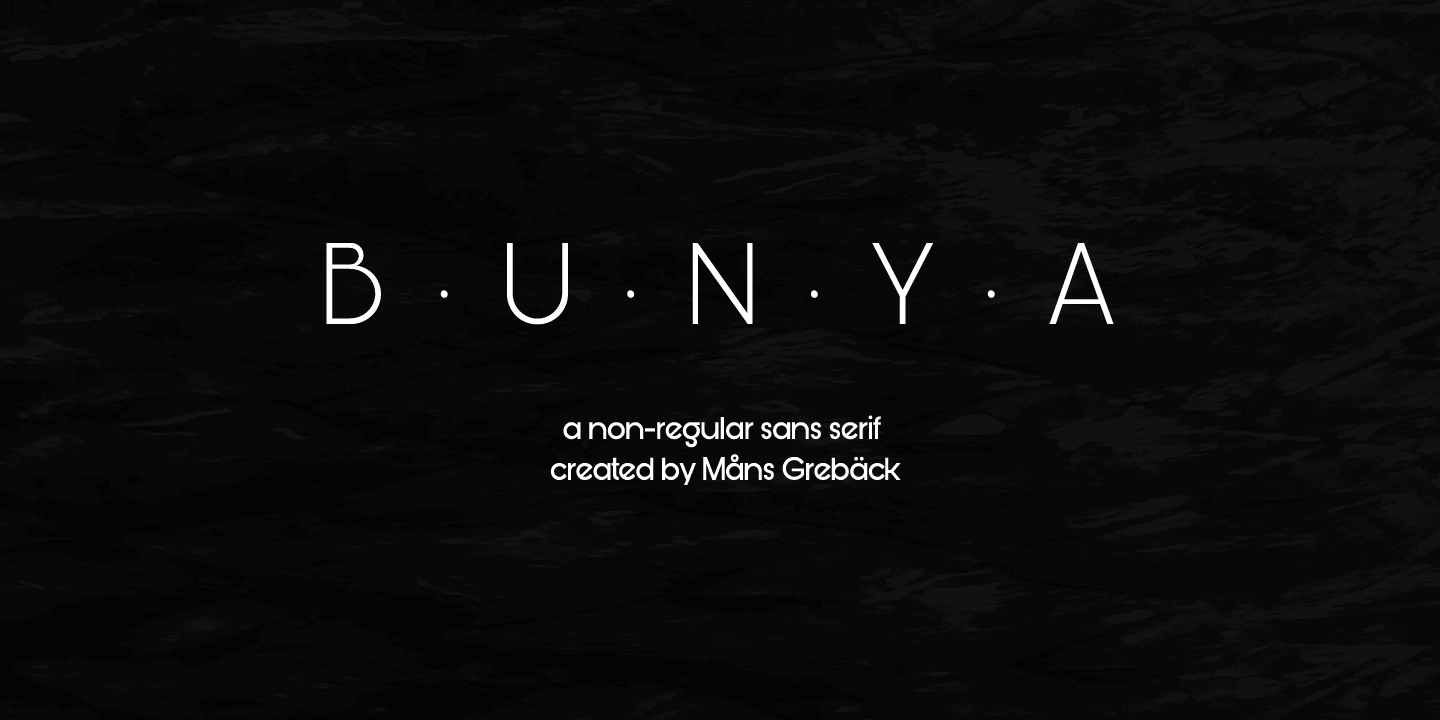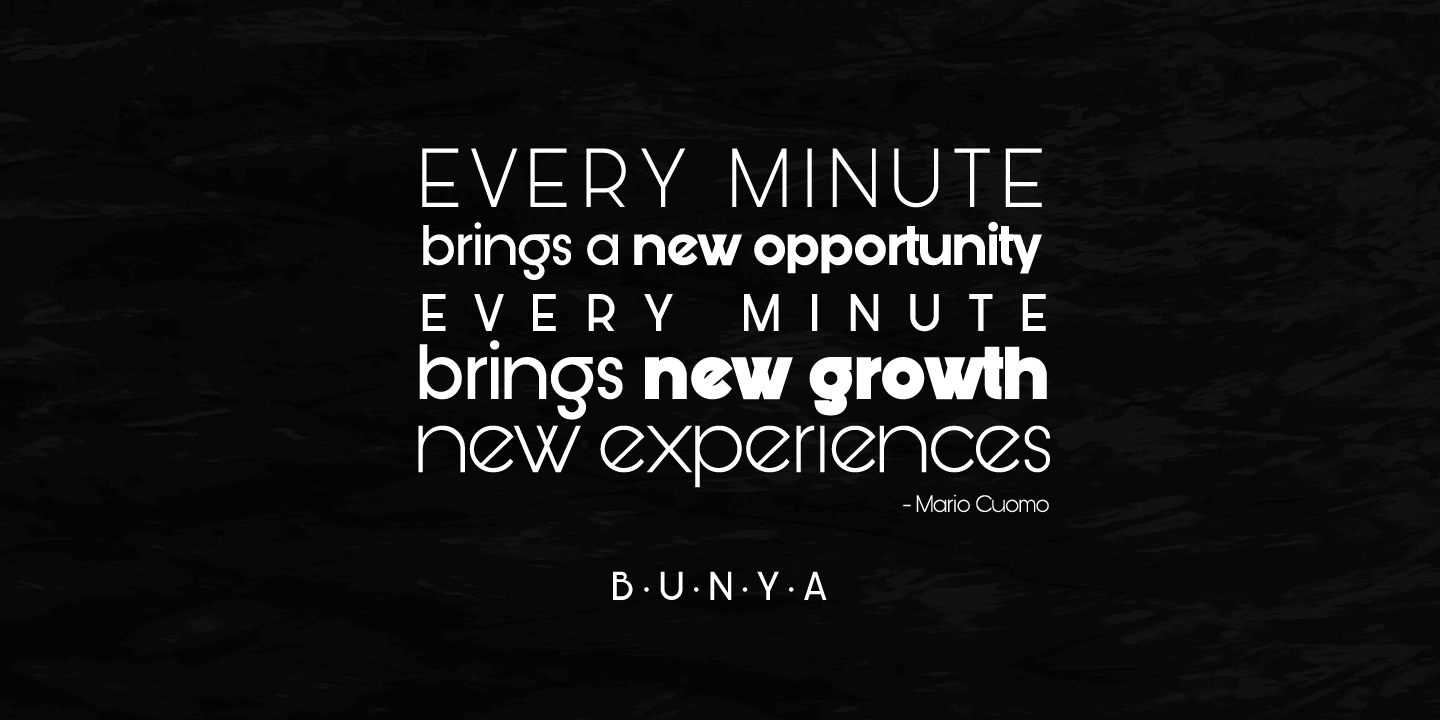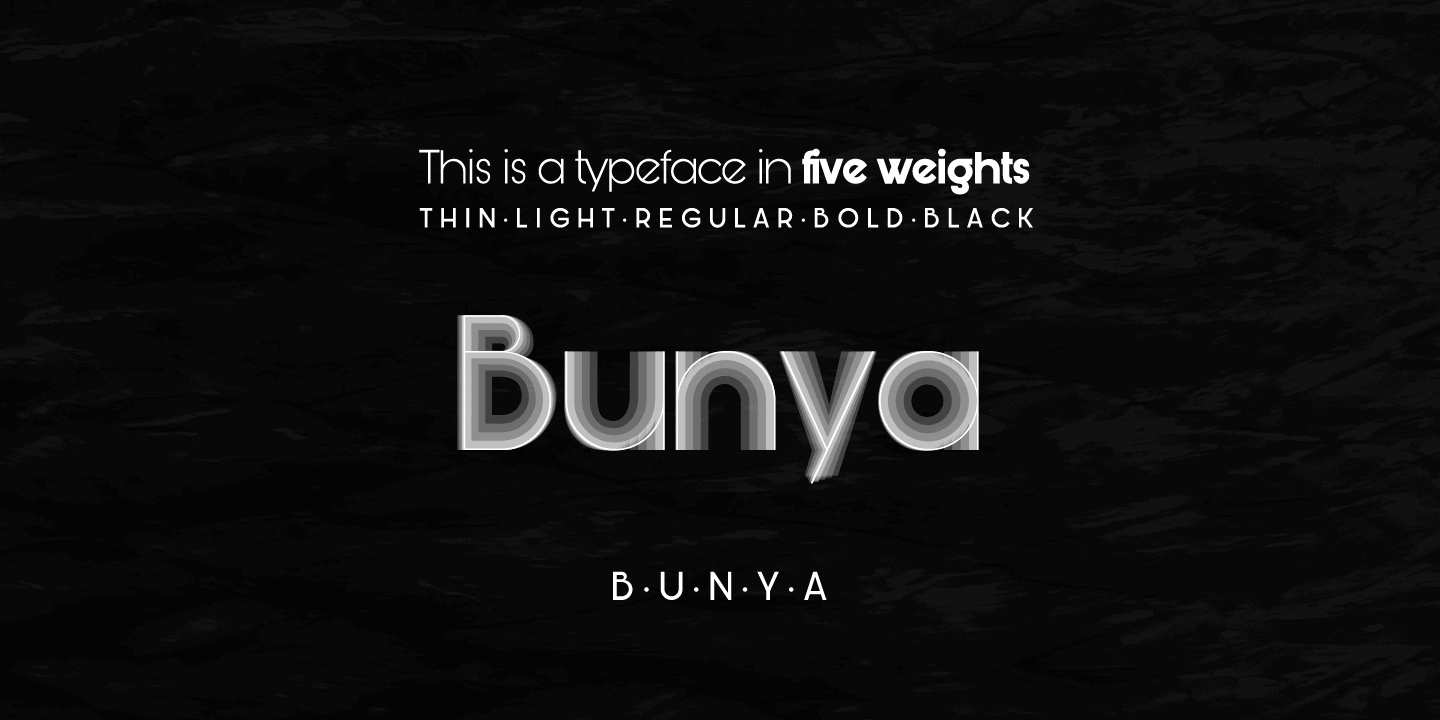
Bunya
Bunya is a sans-serif created in 2016. It is geometric and aesthetic, and contains five weights; Thin, Light, Regular, Bold and Black. Crafted with care by Måns Grebäck, this typeface works great in any context.